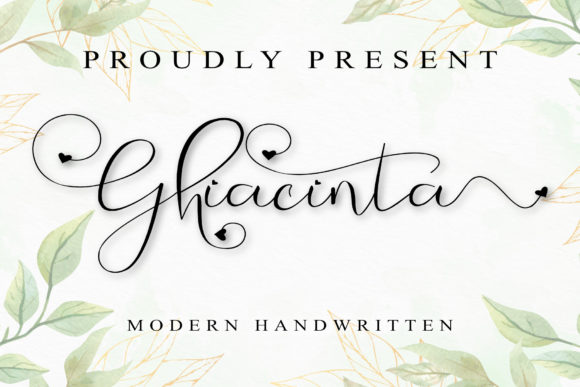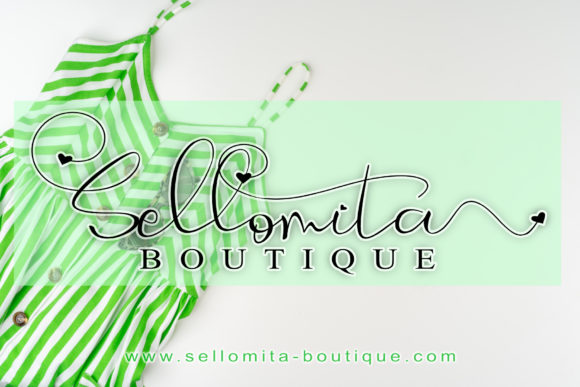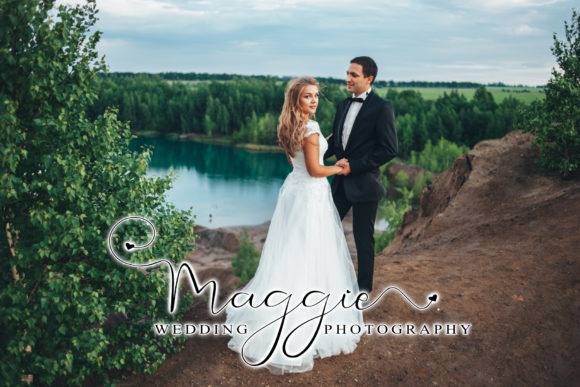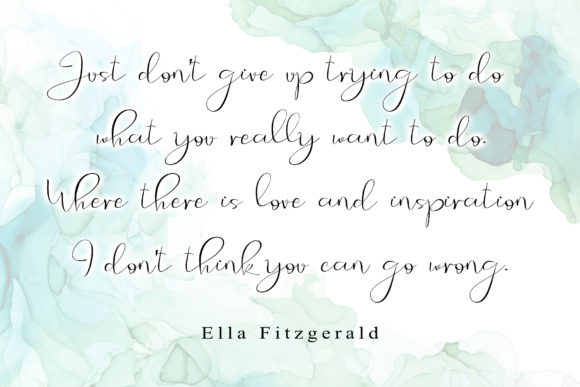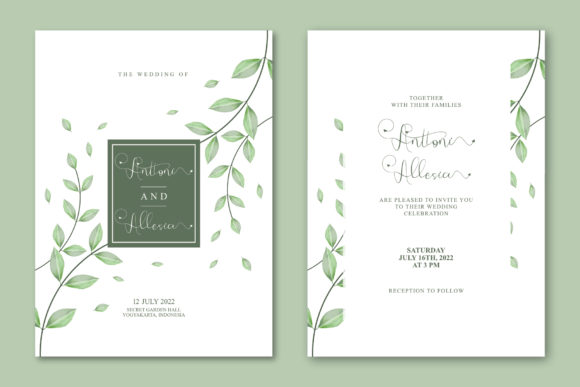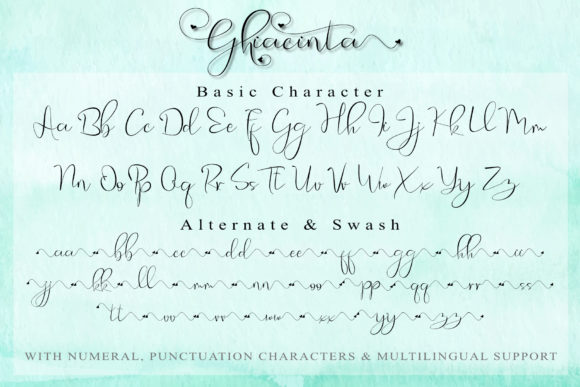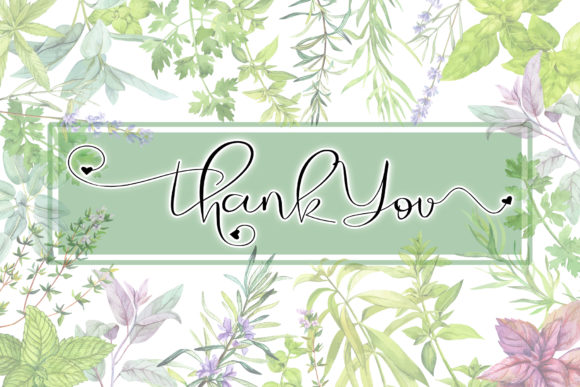
Ghiacinta Font
About Ghiacinta Font
Introducing “Ghiacinta,” a flowing and timeless handwritten font that exudes elegance and charm. With its versatility and remarkable features, “Ghiacinta” is sure to become a treasured addition to your font collection. It is PUA encoded, granting you easy access to all the glyphs and swashes, making your creative journey a seamless experience.
“Ghiacinta” showcases a varying baseline, adding a touch of playfulness to its otherwise timeless appearance. Its smooth lines and stunning alternates enhance the font’s allure, leaving a lasting impression on any design it graces.
Imagine using “Ghiacinta” to create stunning wedding invitations, elegant branding materials, heartfelt quotes, or any project that deserves a touch of sophistication.
In wedding invitations, “Ghiacinta” sets the stage for a celebration of timeless love and beauty, leaving a lasting memory for every recipient.
For branding and logo design, “Ghiacinta” becomes a symbol of refined elegance and charm, making your brand stand out with its distinct style.
Heartfelt quotes gain new depth and emotion with “Ghiacinta,” as its flowing curves express sentiments with grace and authenticity.
With its versatility and timeless allure, “Ghiacinta” becomes an essential tool for elevating your designs to new levels of beauty.
In conclusion, “Ghiacinta” is more than just a font; it’s a timeless masterpiece of elegance and charm. With its flowing and versatile style, “Ghiacinta” becomes a cherished companion for all your design projects. Fall in love with the captivating allure of “Ghiacinta” and watch as your creations become spectacular works of art. Let your imagination flourish in the flowing and timeless embrace of “Ghiacinta,” the handwritten font that defines creative brilliance and brings a touch of sophistication and beauty to every design.